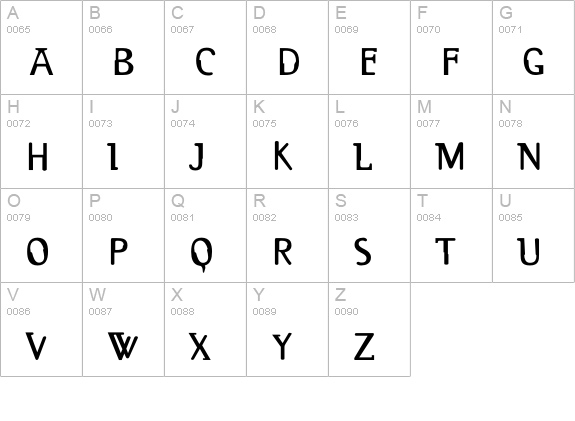
2RebelsDeux-Bold is a strong, high-contrast variant in the 2RebelsDeux typeface family \xE2\x80\x94 well suited to headlines, attention-grabbing titles, and strong calls-to-action.
2RebelsDeux-Bold font is a striking and bold typeface that exudes a rebellious and edgy vibe. With its strong and impactful design, this font is perfect for making a bold statement in your designs. Its thick strokes and sharp angles give it a modern and dynamic look that will grab the attention of your audience. What sets 2RebelsDeux-Bold font apart is not just its unique style, but also the fact that it is available for free download at FontsMarket.com. This means that you can easily add this eye-catching font to your collection without any cost, making it a valuable asset for your design projects. Whether you're working on posters, branding materials, or social media graphics, 2RebelsDeux-Bold font will help you stand out and make a lasting impression. Download it for free today and unleash your rebellious creativity!